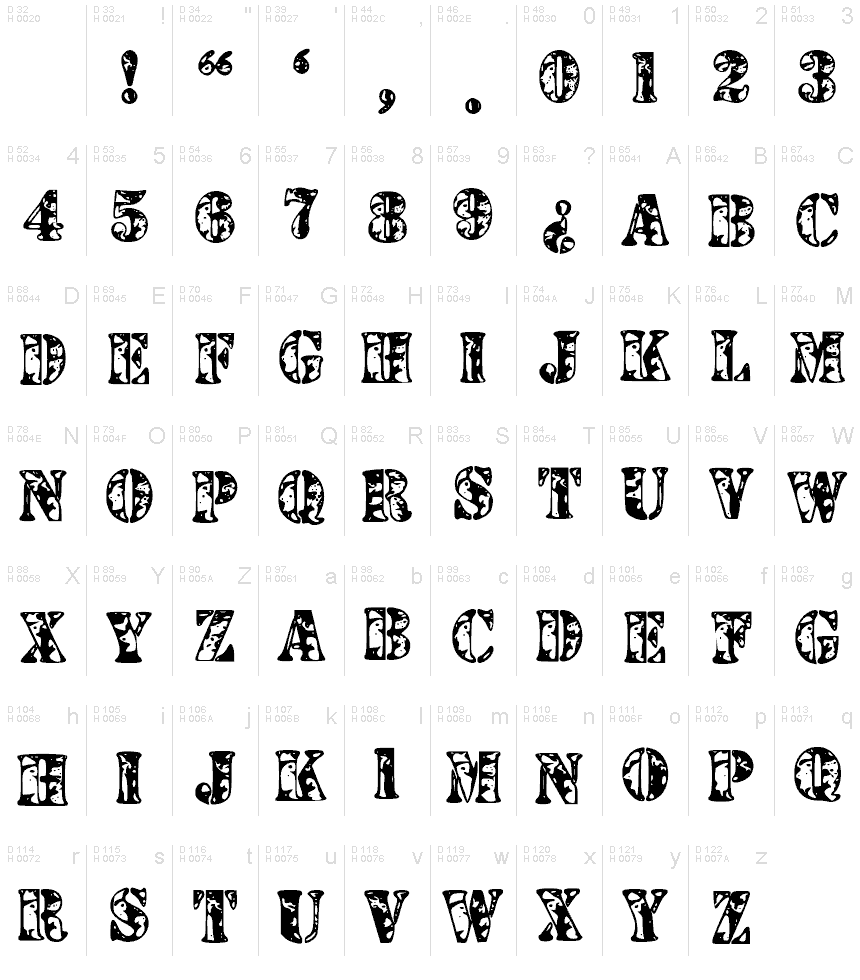
Camoflaug3 Military Regular
Camoflaug3 Military font inherited classic army stencil inspirations along with a contemporary eroded twist. The firm characters are crafted in bold weight, which intensifies its colour and gives it an intriguing presence. Each letter showcases its beauty with time-worn effects, often leading to fragmented outlines, causing viewers’ eyes to have conflicting sensations.
The typeface is free and can be found suitable for poster designs, headlines, magazine covers, video thumbnails, book covers and packaging designs among others. Use it on your website banners or in brand identities that need to express roughness as well as order.